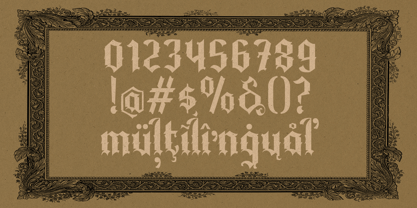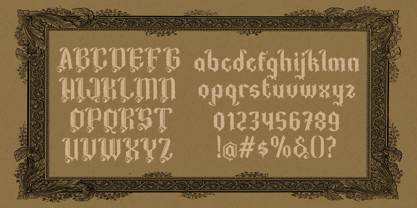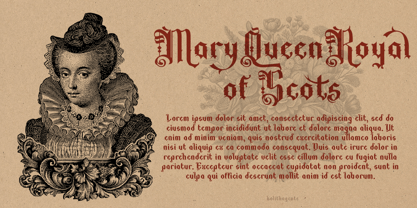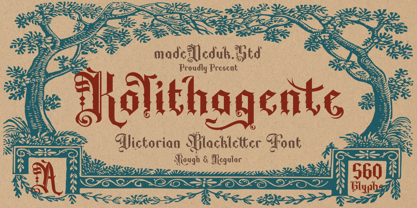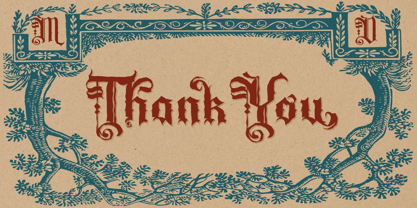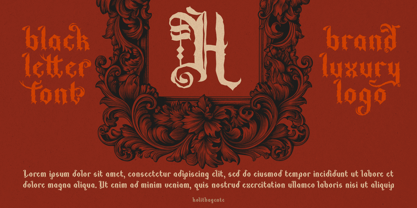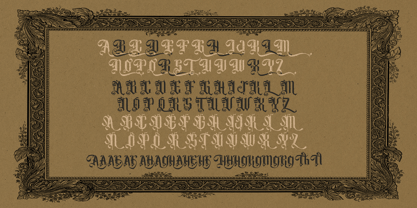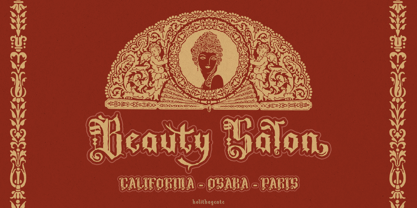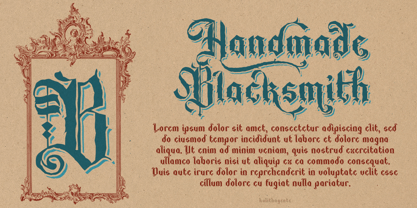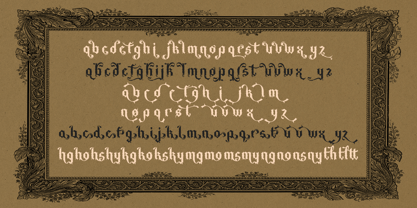
Kolithagente
The Kolithagente Font Family was designed by madededuk and published by madeDeduk. Kolithagente contains 2 styles.
Hello I'm really excited to introduce Kolithagente Masterfully designed to become a strong type mix Victorian and Blackletter type, this font has the potential to bring each of your creative ideas to the highest level. Come with different style combine with ligatures and special alternative glyphs so you can create a lots with layouts and compositions. This font is perfectly made to be a logo, and the other various formal forms such as invitations, labels, logos, magazines, books cover, greeting cards, packaging, fashion, make up, novels, labels whether you’re creating digital content or printed materials.